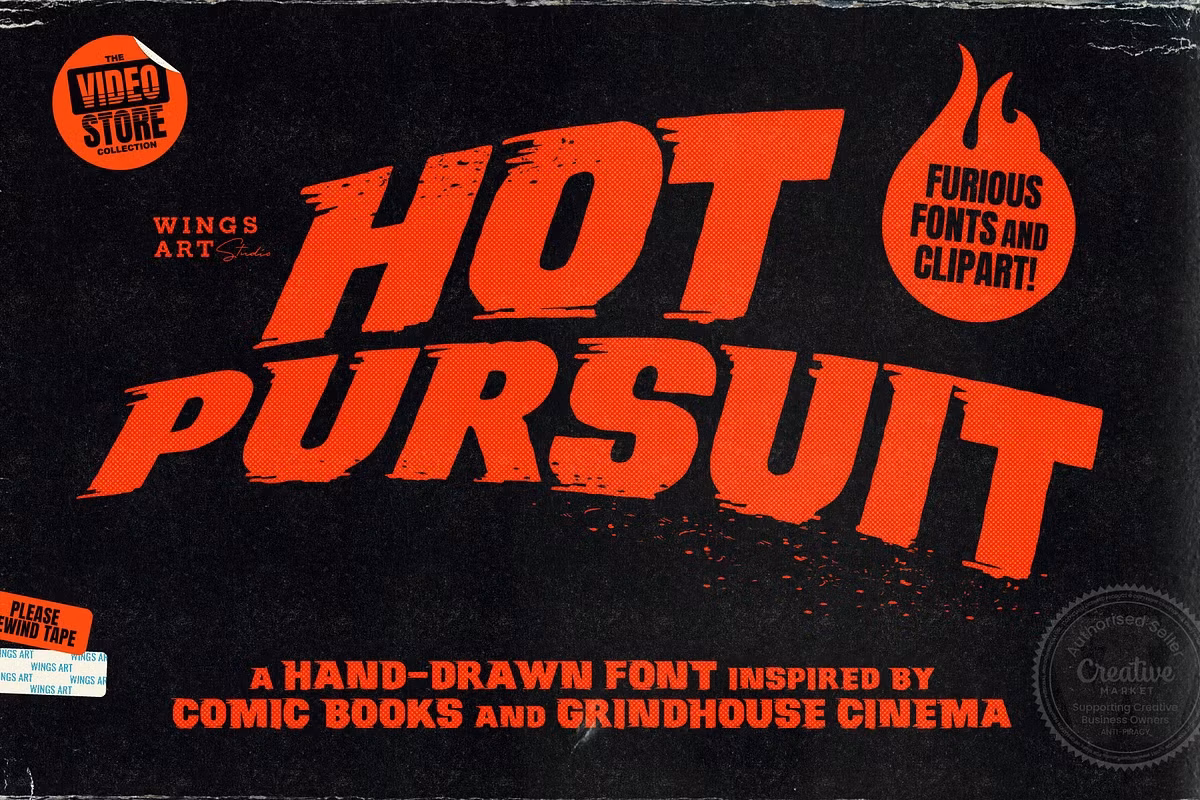
Hot Pursuit: Grind-house Font Free Download
Explore the bold energy of Hot Pursuit: Grind-house Font Free Download, an edgy, cinematic typeface inspired by vintage action movie posters. You need to purchase this font for commercial use. However, you can test its dynamic aesthetic with Hot Pursuit: Grind-house Font Free Download for personal or demo projects. Ideal for movie titles, album covers, posters, and gritty graphic designs, this font brings a powerful retro vibe. Designers value its impactful, distressed textures and dramatic styling, perfect for adding intensity and nostalgia. Elevate your projects instantly—get Hot Pursuit: Grind-house Font Free Download today and give your designs a thrilling visual boost.